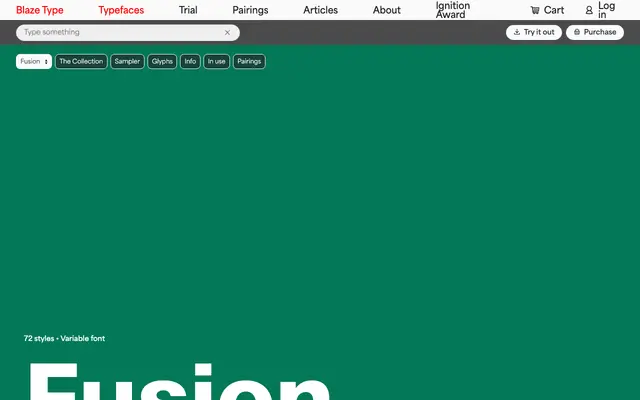
A 72-style grotesque system from Blaze Type split across two stylistic branches, Neue and Grotesk, each available in standard and expanded widths with nine weights and matching italics.
The family pairs a Neue branch with a Grotesk branch, giving designers two distinct but related voices within a single coherent system. Both branches run across standard and expanded width variants, with nine weights from Thin to Black and corresponding italics in each. Variable font support is included, making the full range of 72 styles accessible across a single file.
The family splits into two stylistic branches, Neue and Grotesk, both sans-serif with no serifs or slab elements, spanning standard and expanded widths in the manner of a contemporary grotesque system.